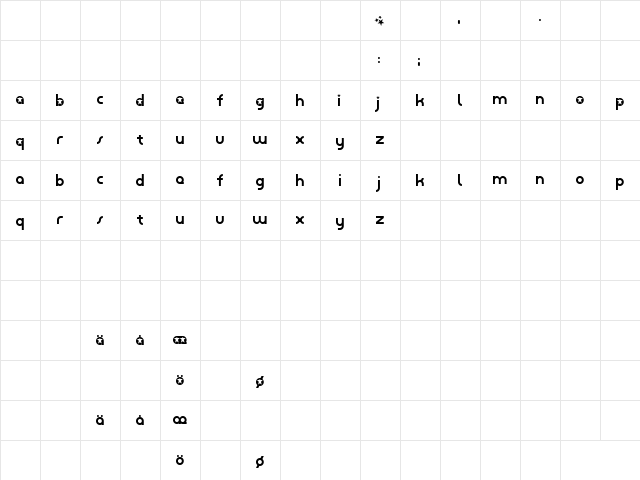
starmonkey Regular
Design Context for starmonkey Typeface
starmonkey is a composed and adaptable typeface that performs quietly and consistently across a wide range of design contexts.